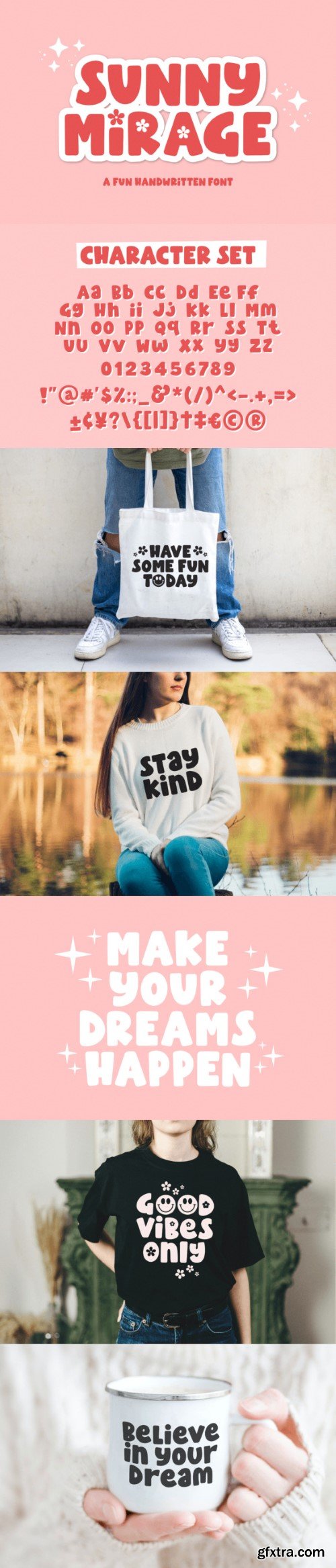
阳光幻象字体
Sunny Mirage is cute and bubbly font.
This font is perfect for procreate, shirts, boho designs, stickers, logos, branding, greeting cards, Cricut projects, posters, magazines, social media, planner prints and more!